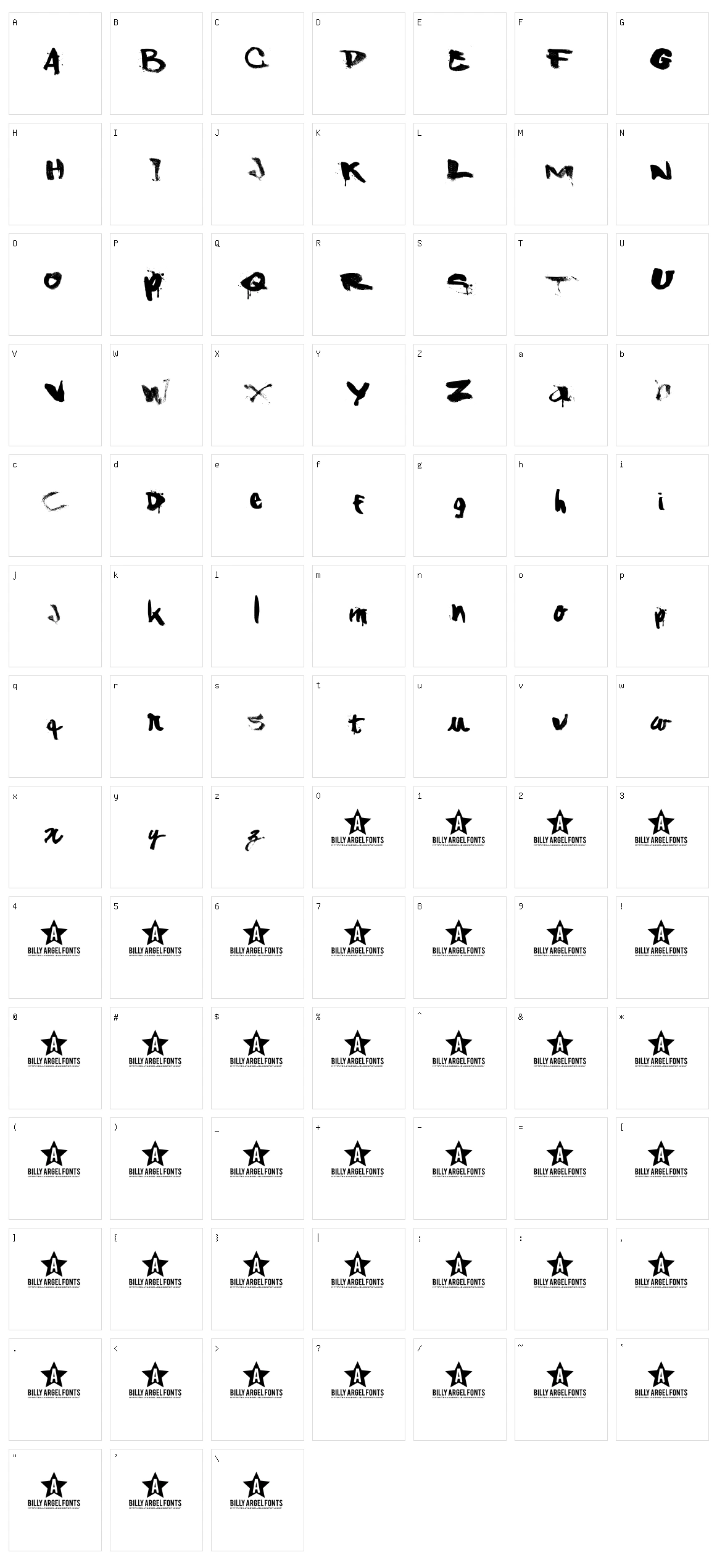
The free font Shanked is carefully designed by Billy Argel Fonts ?, showcasing a thoughtful balance of creativity and usability and falls under the Trash font style. When you download the ZIP file, it contains only 257.41 KB of font files, making it lightweight and quick to download. Please review the license details below to understand permitted usage and distribution rights. If license information is not available, we recommend using this font for personal projects only or contacting the author directly for commercial usage permissions.
SHANKED font